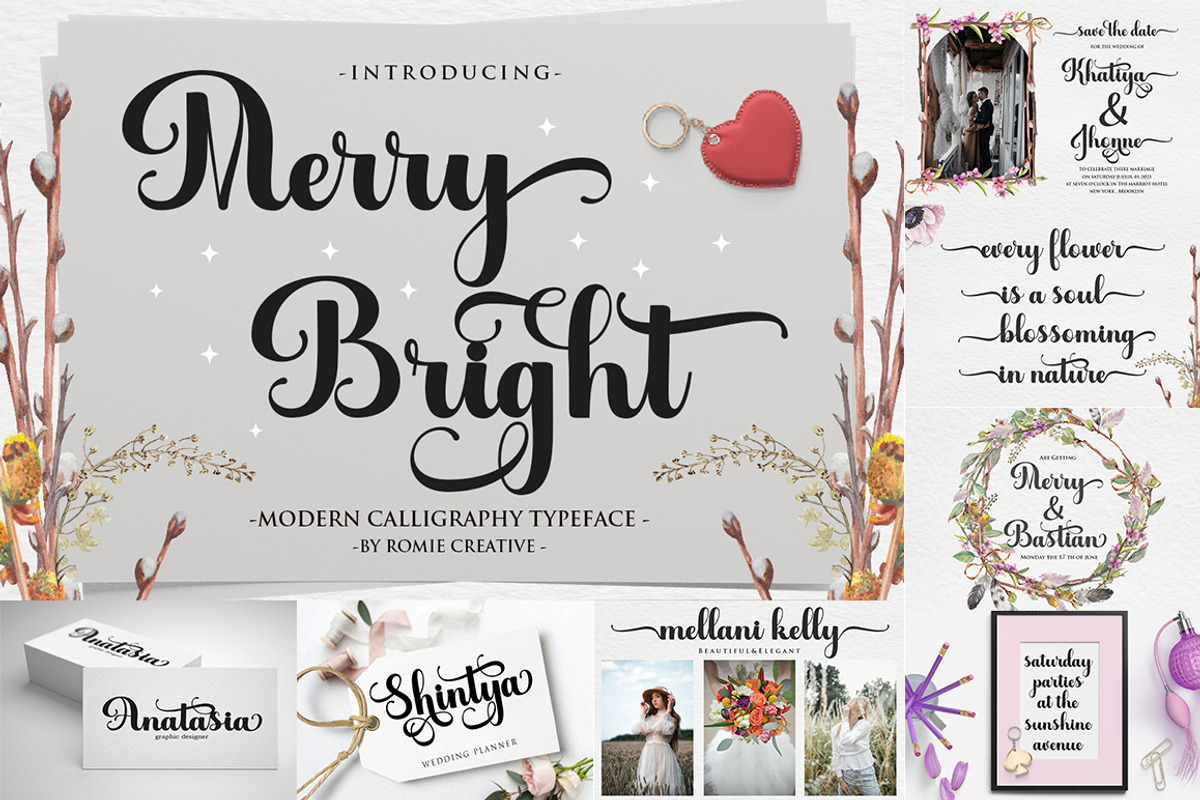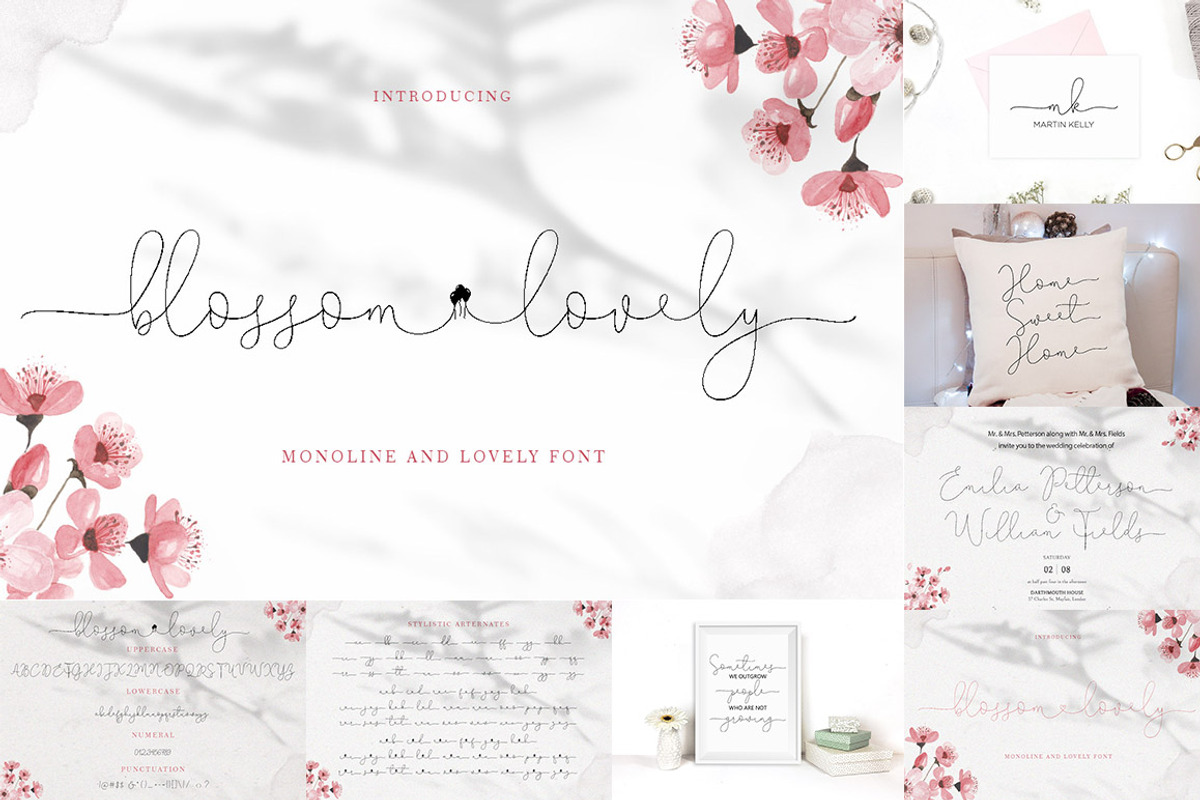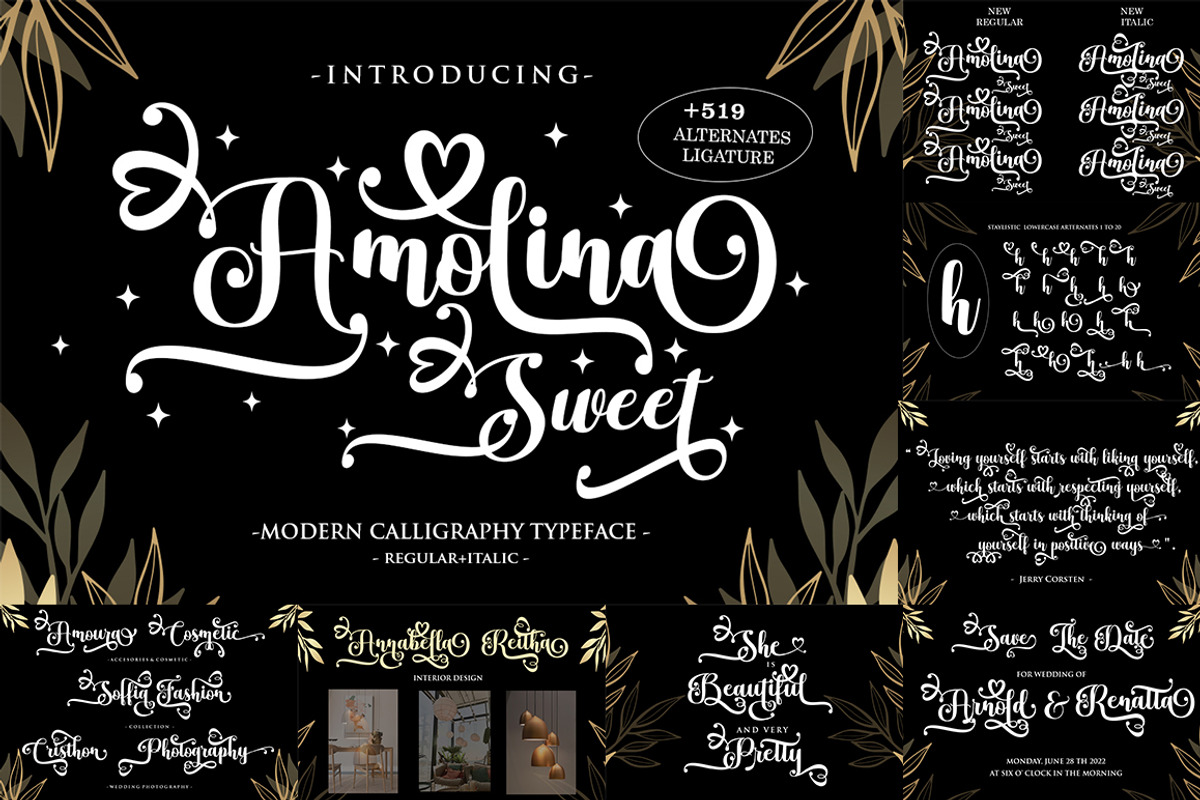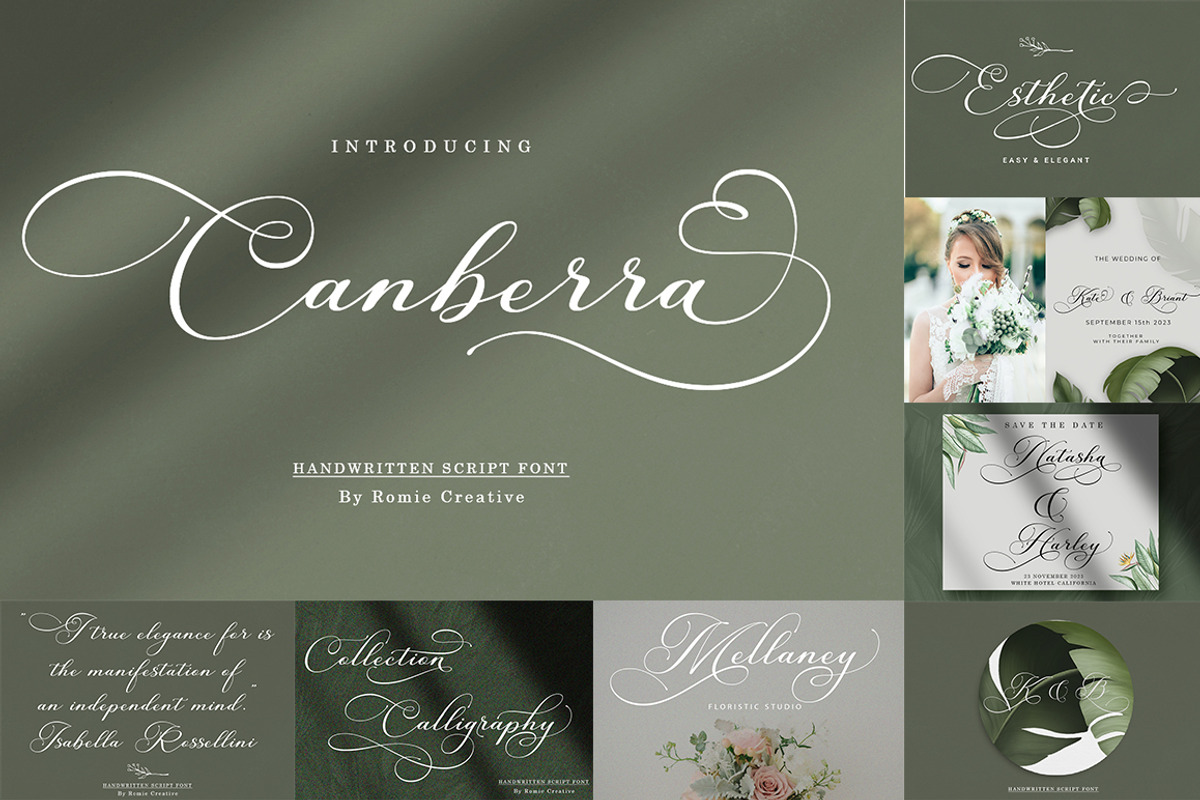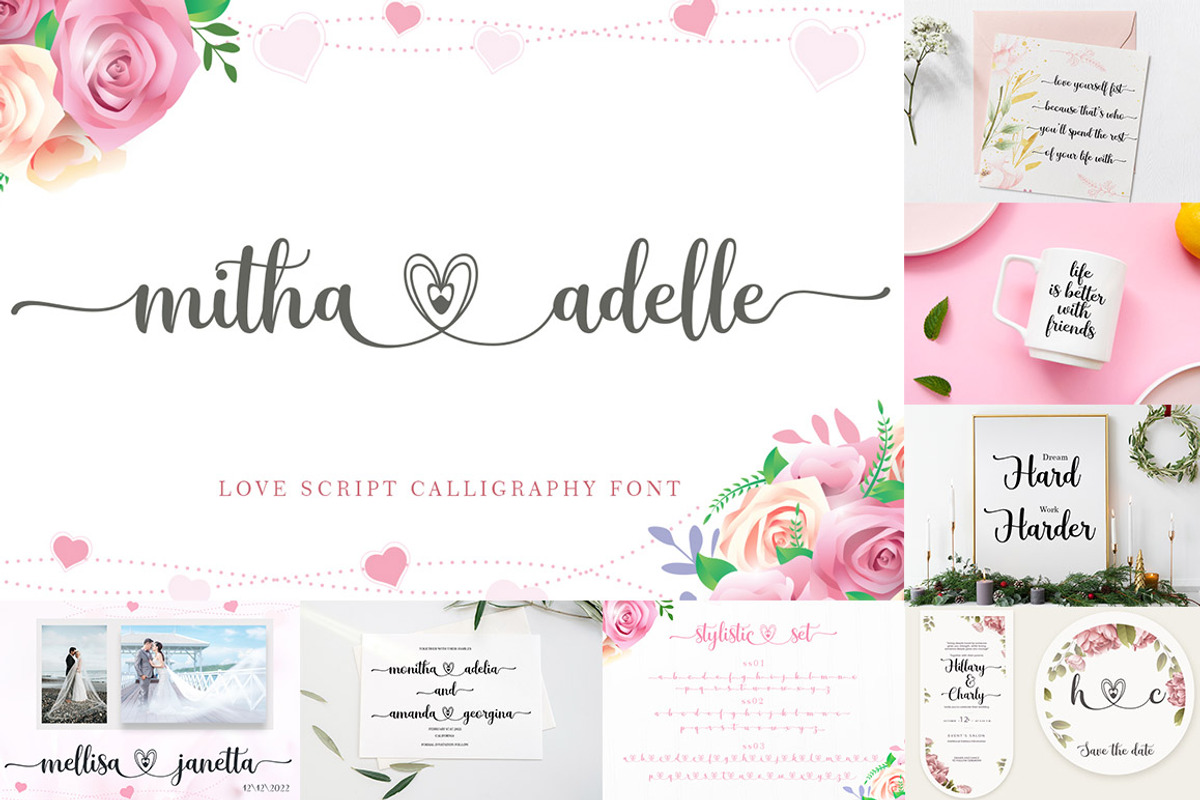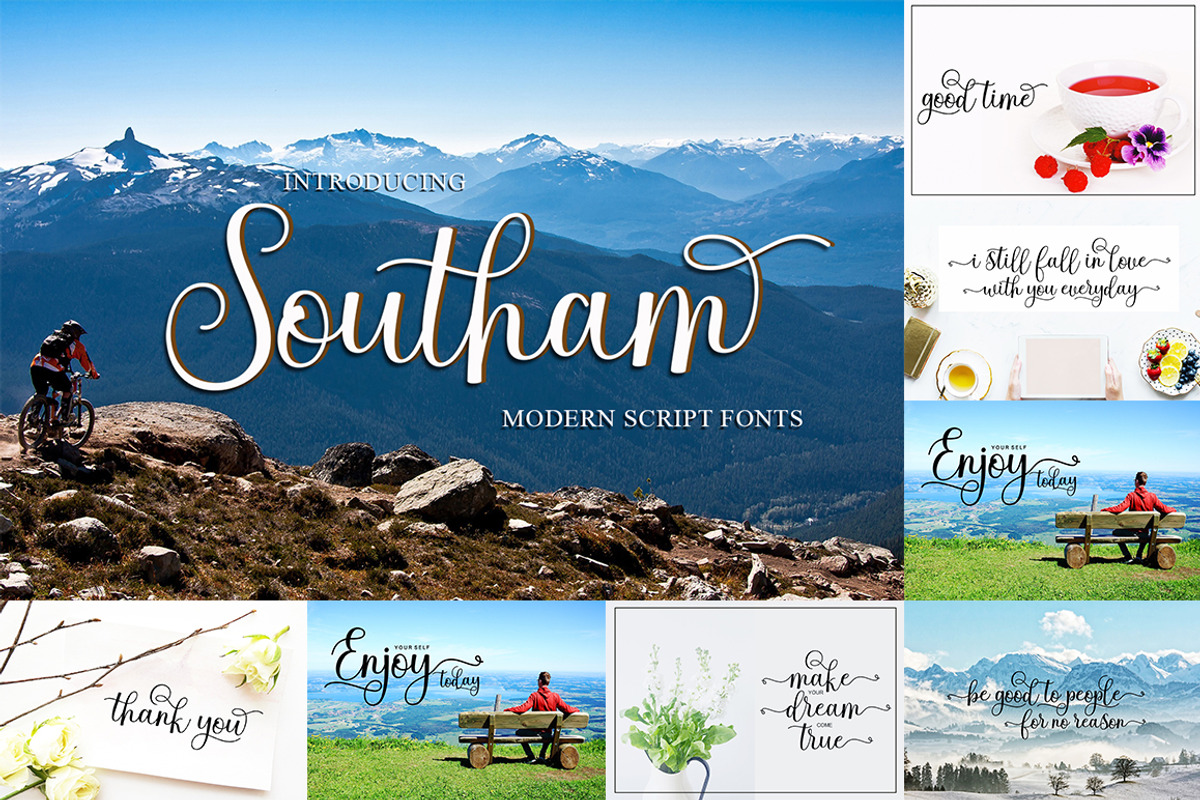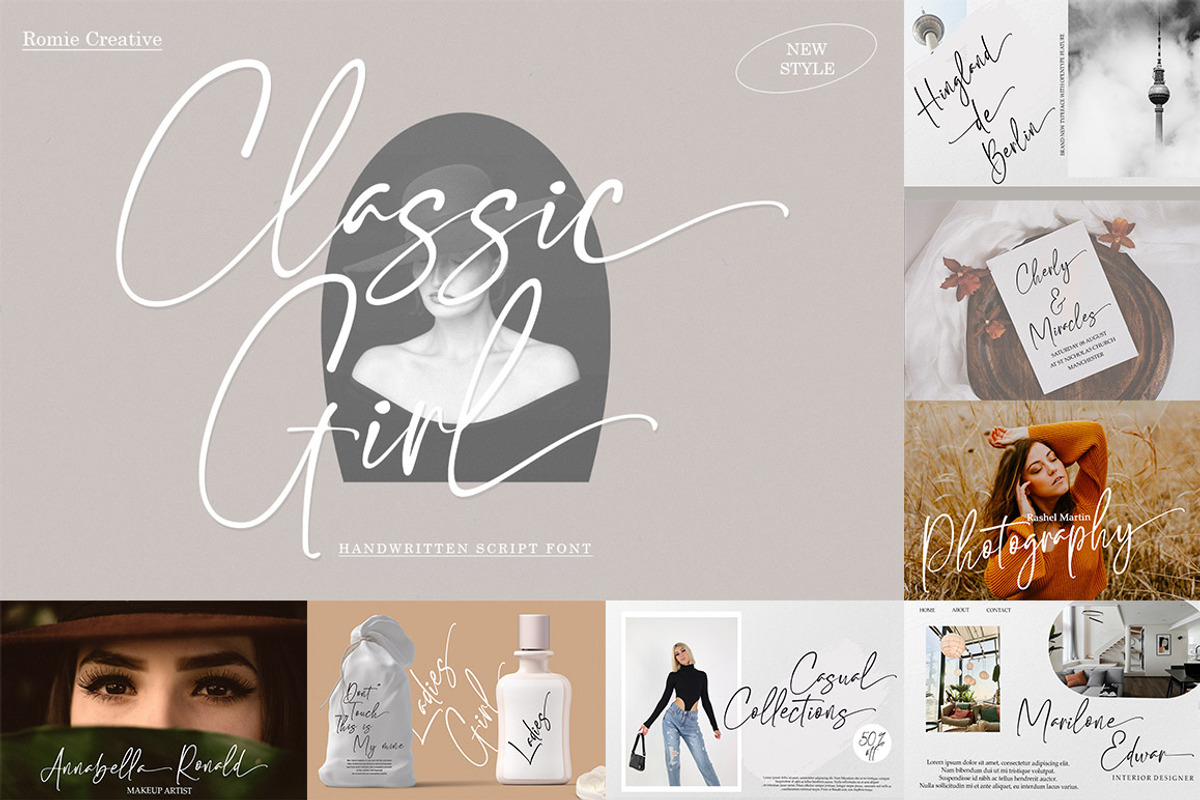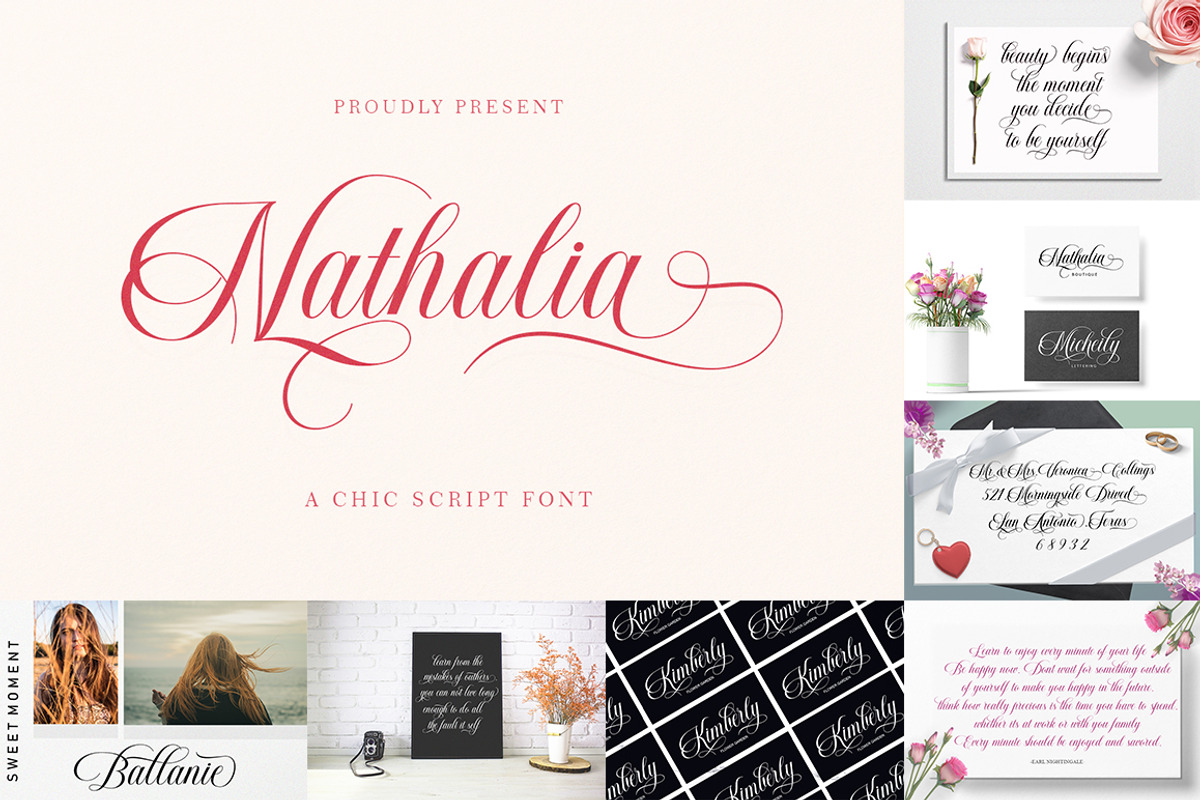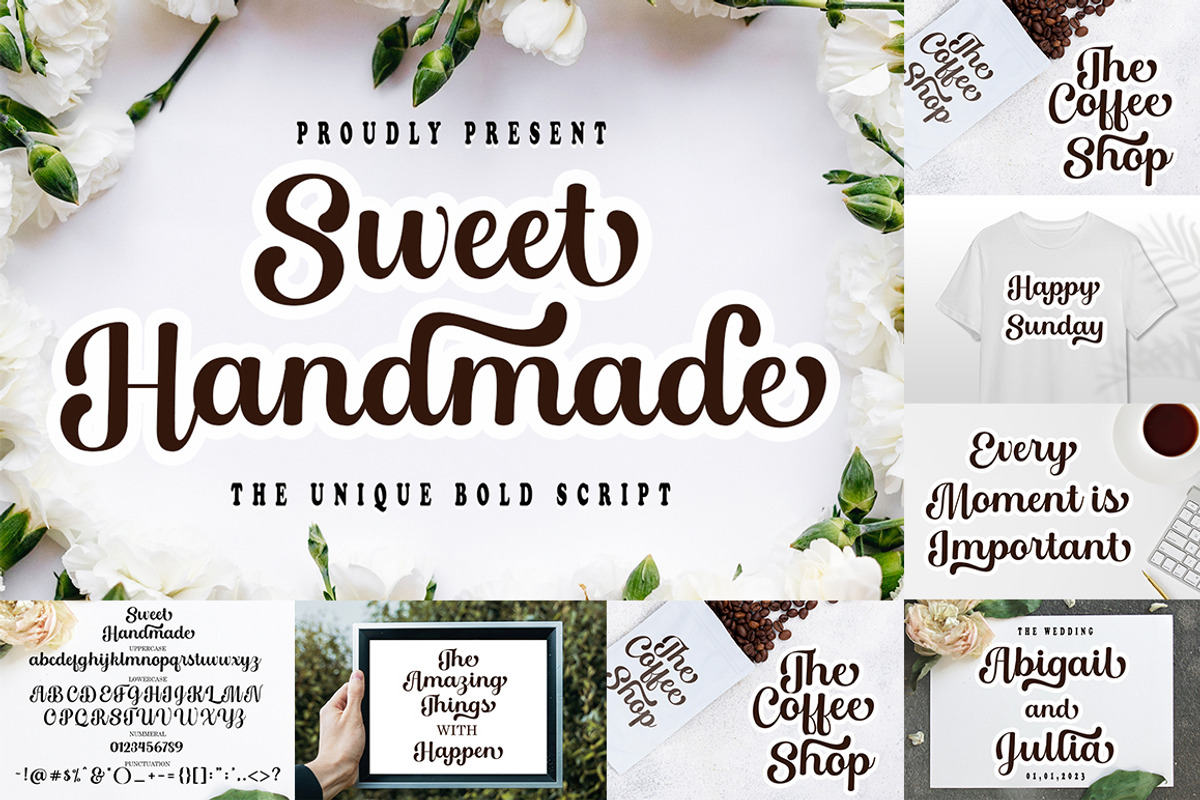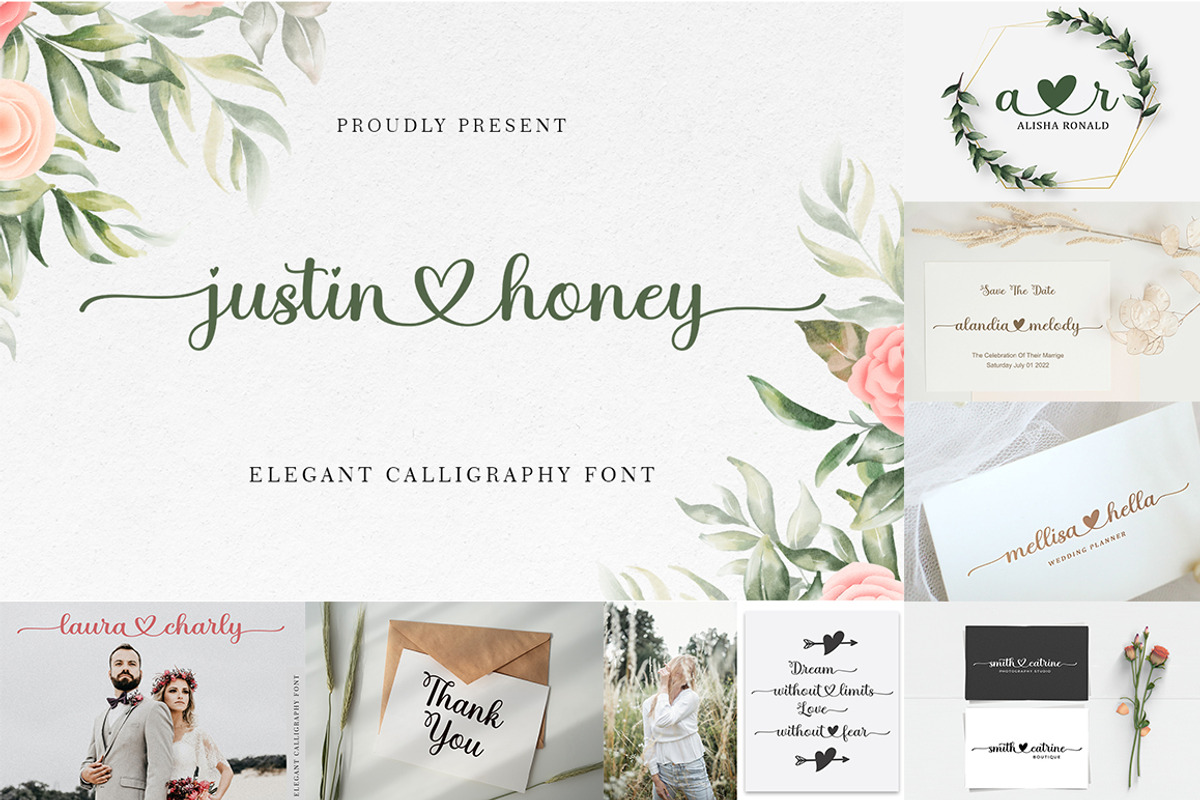
The Special Collection Font Bundle
The Special Collection Bundle amazing designed typefaces is here to update your font library!
In this bundle, you'll find a combination of classic and modern styles to create the perfect lettering.
This professional resource is also powerful because each font has its own magical design. You can use it for almost anything like blog headers, posters, wedding elements, t-shirts, clothing, book covers, business cards, greeting cards, branding, invitations and quotes, and so on.